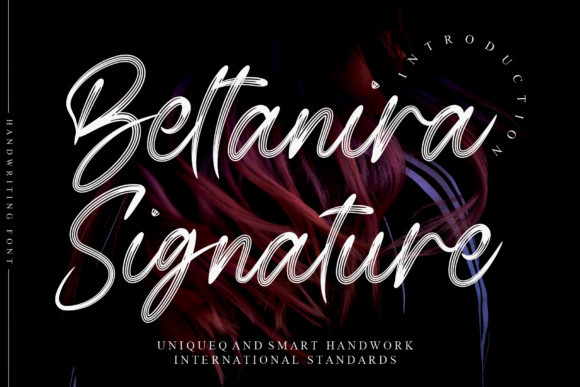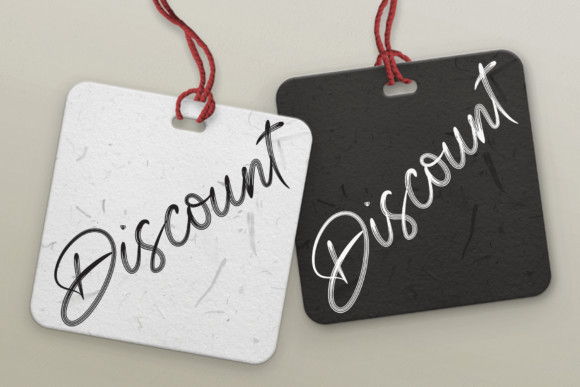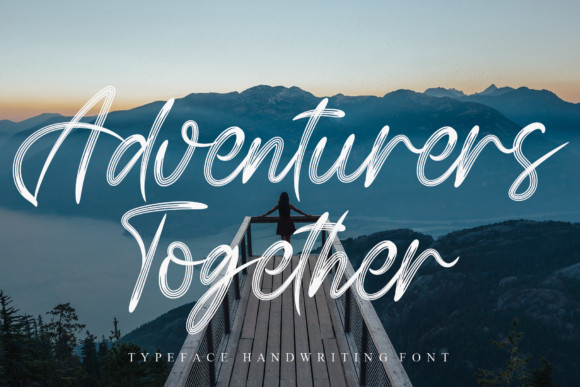
Beltanira Signature Font
Beltanira Signature is an elegant script font with a contemporary atmosphere and impeccable form, inspired by timeless classic calligraphy. Not too thin and not too thick, balanced and varied, Beltanira Signature was designed to enhance the beauty of your projects.